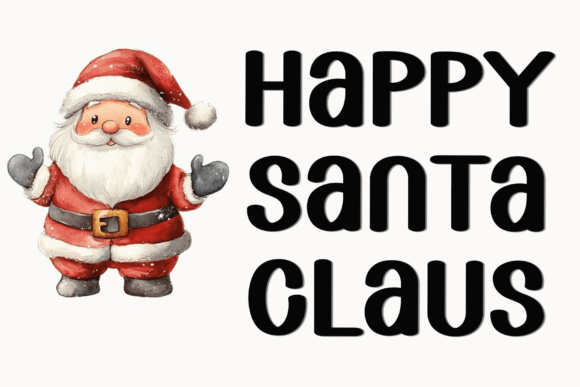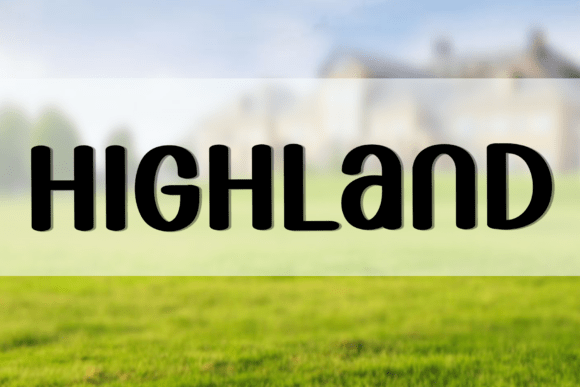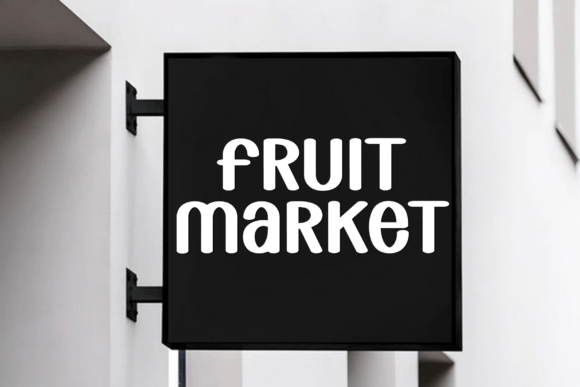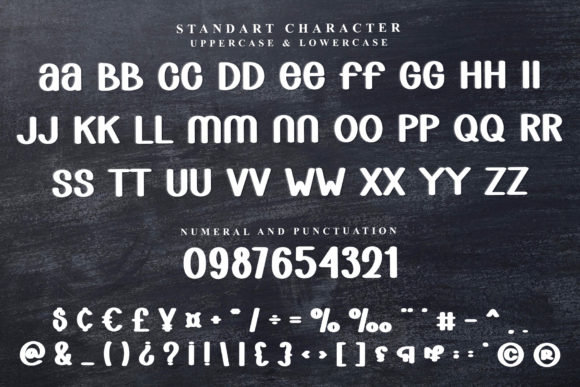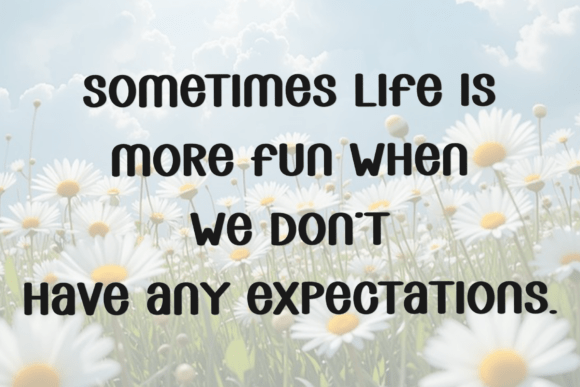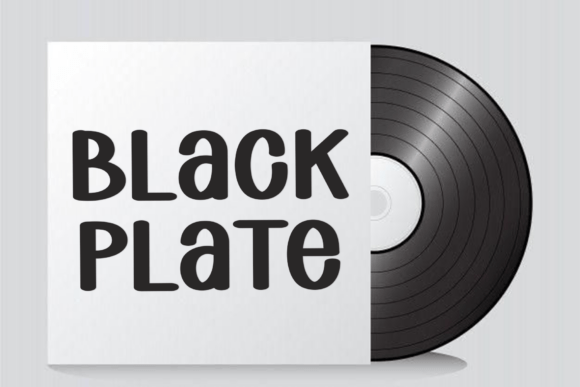
Introduction to Melon Berry Font
As you sit amidst the twinkling lights and festive decorations, the urge to create something special for the holiday season strikes. Your creative mind begins to whirl with ideas for greeting cards, gift tags, and other projects that will make your loved ones feel extra special. But, what’s missing is the perfect font to bring your designs to life. That’s where the enchanting Melon Berry Font comes in – a festive and merry typeface that captures the essence of the holiday season.
With its whimsical flair and decorative elements, Melon Berry Font adds a touch of magic to your typography, making it a valuable resource for designers. Whether you’re working on a creative project or just want to add a personal touch to your designs, this high-quality font is sure to shine. And, the best part? It’s PUA encoded, making it easy to access all the amazing glyphs and ligatures you need to bring your designs to life.
Key Features of Melon Berry Font
- High-quality, hand-drawn design perfect for creative projects and personal use
- Includes a range of characters, including uppercase and lowercase letters, numbers, and special symbols
Honest Review: Melon Berry Font
I recently had the chance to try out the Melon Berry Font, and I must say it’s a great addition to any design resource library. The font’s playful and whimsical nature makes it perfect for creative projects that require a touch of fun and personality.
Here are some things that work well with the Melon Berry Font:
- ✨ High quality design: The font’s clean lines and smooth curves make it a great choice for digital design.
- ✨ Versatile: The font can be used for a variety of creative projects, from social media graphics to merchandise design.
- ⚠️ Limited character set: The font only includes a limited number of characters, which may not be suitable for projects that require a wide range of symbols and punctuation.
- ⚠️ Not suitable for professional use: While the font is great for creative projects, it may not be suitable for professional use due to its playful and informal nature.
Overall, I’m impressed with the Melon Berry Font and would recommend it to designers looking for a fun and creative design resource. Just be aware of its limitations and use it in the right context.
The Melon Berry Font is ideal for various creative projects, including graphic design, digital art, and branding. Its unique design and high-quality make it perfect for professional and personal projects alike.